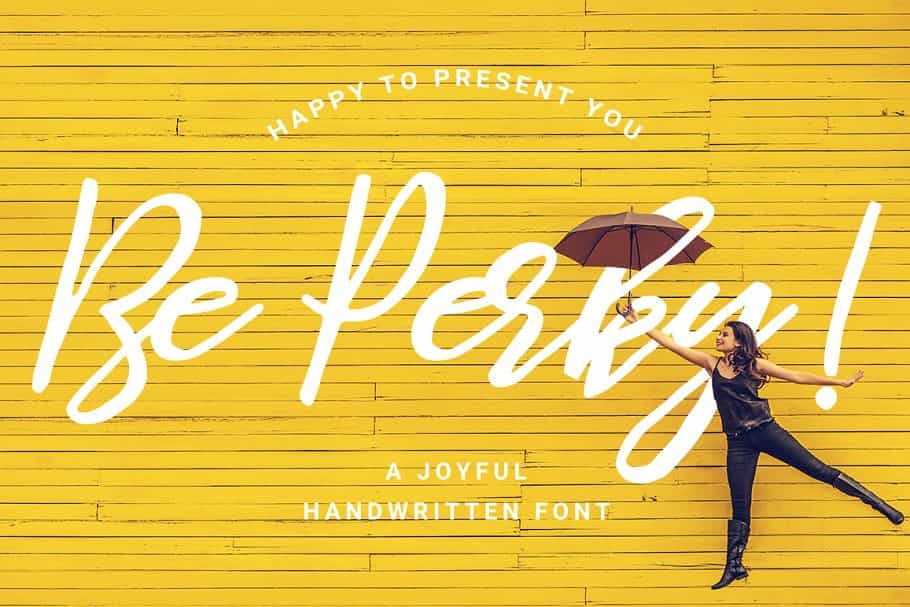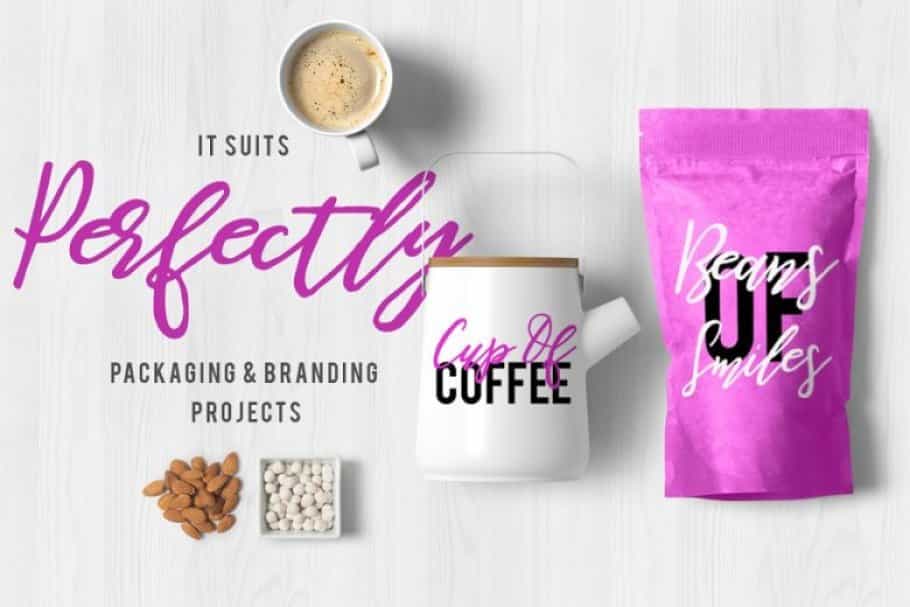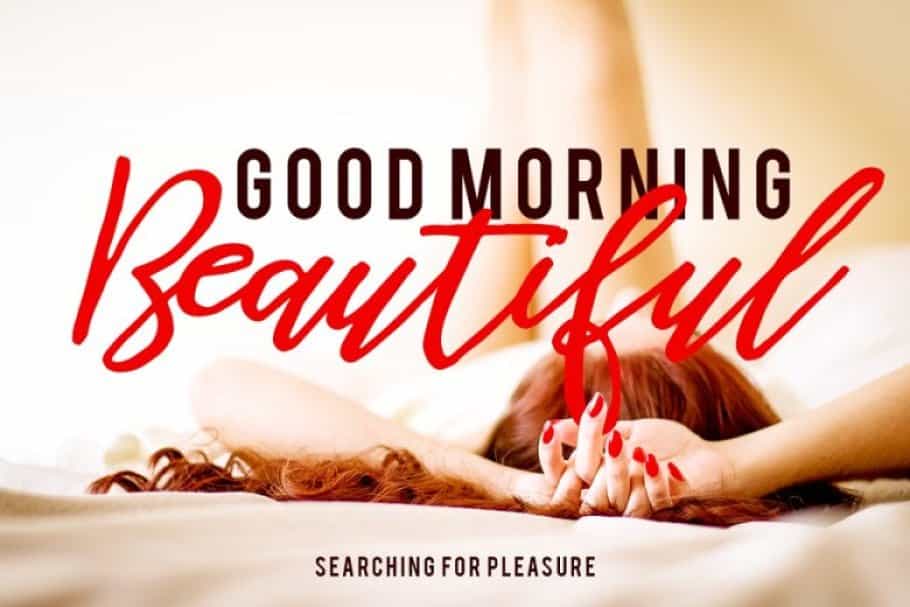
Discover Be Perky! Handwritten Font, part of the Brush Handwritten collection—a versatile and unique font perfect for adding a personal touch to your projects. Download it for free and enjoy crafting designs with style, from invitations to social media posts. This font is available exclusively for personal use, giving you the freedom to create without limits. Unlock your creativity with Be Perky! Handwritten Font today!
Introducing Be Perky Font. A lively and genuine handwritten font, which is the most suitable for an authentic brush-lettered feel on your logo, name tag, handwritten quotes; product packaging; social media & greeting cards; badges; labels, blog headlines advertising poster design book covers magazines fashion campaigns newsletters album covers and more.